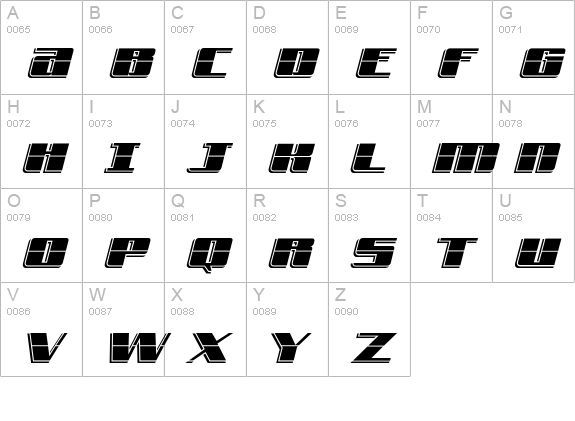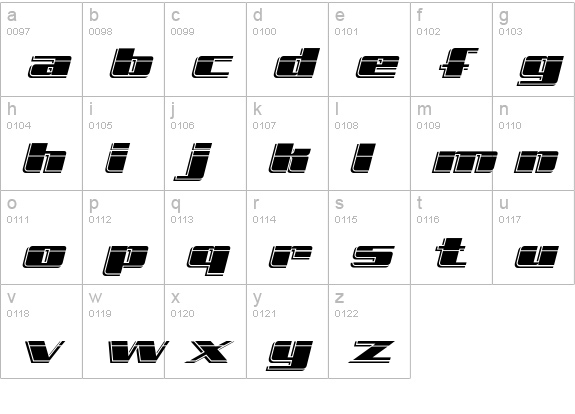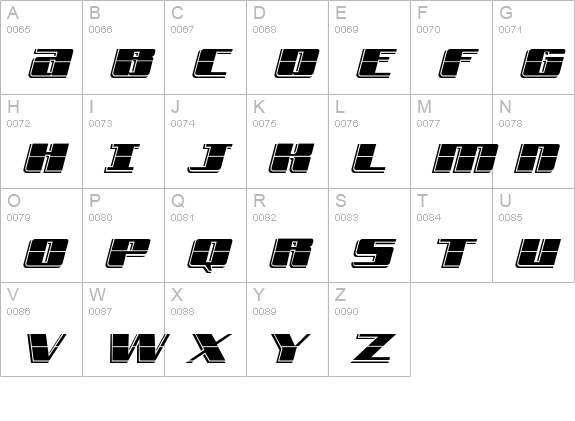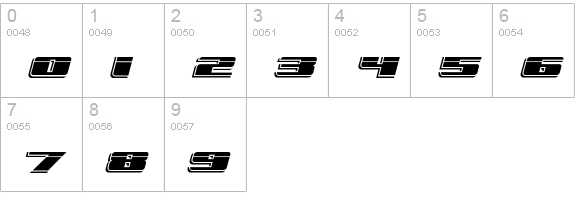
FreeLine-CruiseExpress Font Details
Below you can preview FreeLine-CruiseExpress in uppercase [A-Z], lowercase [a-z] and numbers [0-9]. You can also read the author's notes and license information before downloading.
FreeLine-CruiseExpress uppercase A-Z preview FreeLine-CruiseExpress lowercase a-z preview FreeLine-CruiseExpress numbers 0-9 preview
Introducing FreeLine-CruiseExpress, a modern and elegant font that will add a touch of sophistication to your projects. This versatile typeface features clean lines and a sleek design that is perfect for a wide range of applications, from branding to advertising and beyond. The FreeLine-CruiseExpress font is not only stylish and eye-catching but also incredibly easy to read, making it ideal for both print and digital media. What sets FreeLine-CruiseExpress apart is its unique blend of classic and contemporary elements, giving it a timeless appeal that will never go out of style. Whether you're designing a logo, creating a poster, or crafting a website, this font is sure to make a memorable impression on your audience. Best of all, FreeLine-CruiseExpress is completely free to download at FontsMarket.com, so you can start using it in your projects right away without breaking the bank. Don't miss out on this fantastic opportunity to enhance your designs with a high-quality font that won't cost you a penny. Download FreeLine-CruiseExpress today and take your creativity to the next level!